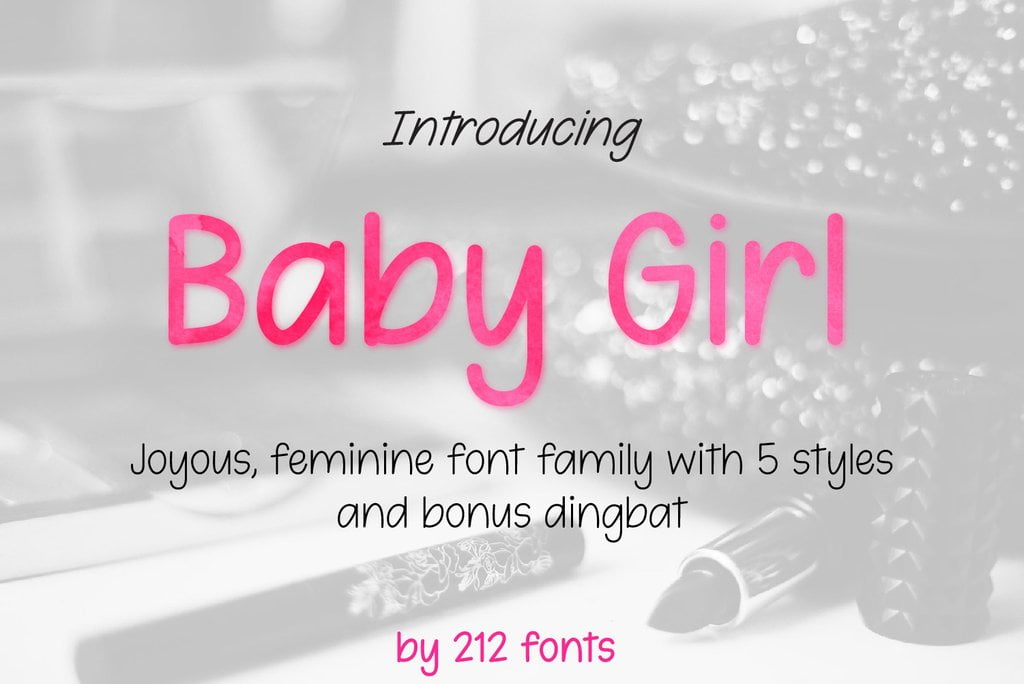
Baby Girl Handwritten Font
Please read entire description before buying. Baby Girl Handwritten Font is a joyous, feminine set of 5 styles of sans serif fonts. Ultra legible and clean, this font set is handwritten with love. Included in this purchase is 212 Girly Stuff, a font of 95 dingbats that pair perfectly with Baby Girl.